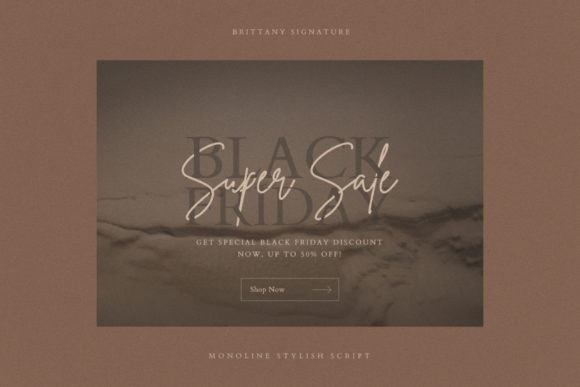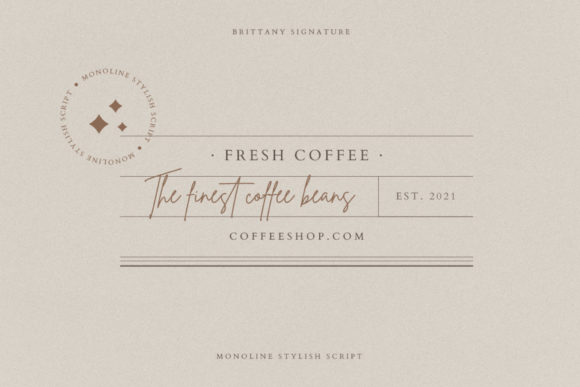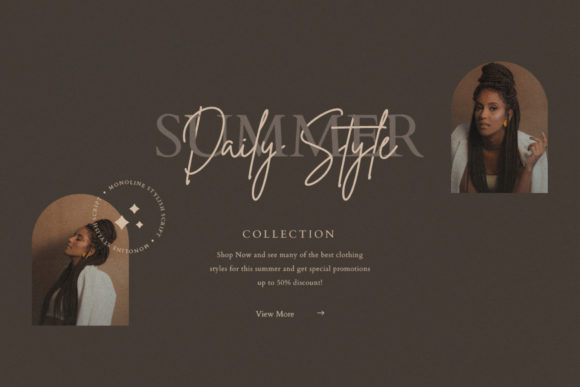
Brittany Signature Script Font
The Brittany Signature is an amazing script font. It has a fashionable, sophisticated signature style with its own unique curves and elegant inky flow.It’s perfect for branding projects, logos, wedding designs, social media posts, advertisements, product packaging, and every other design which needs a handwritten feel.